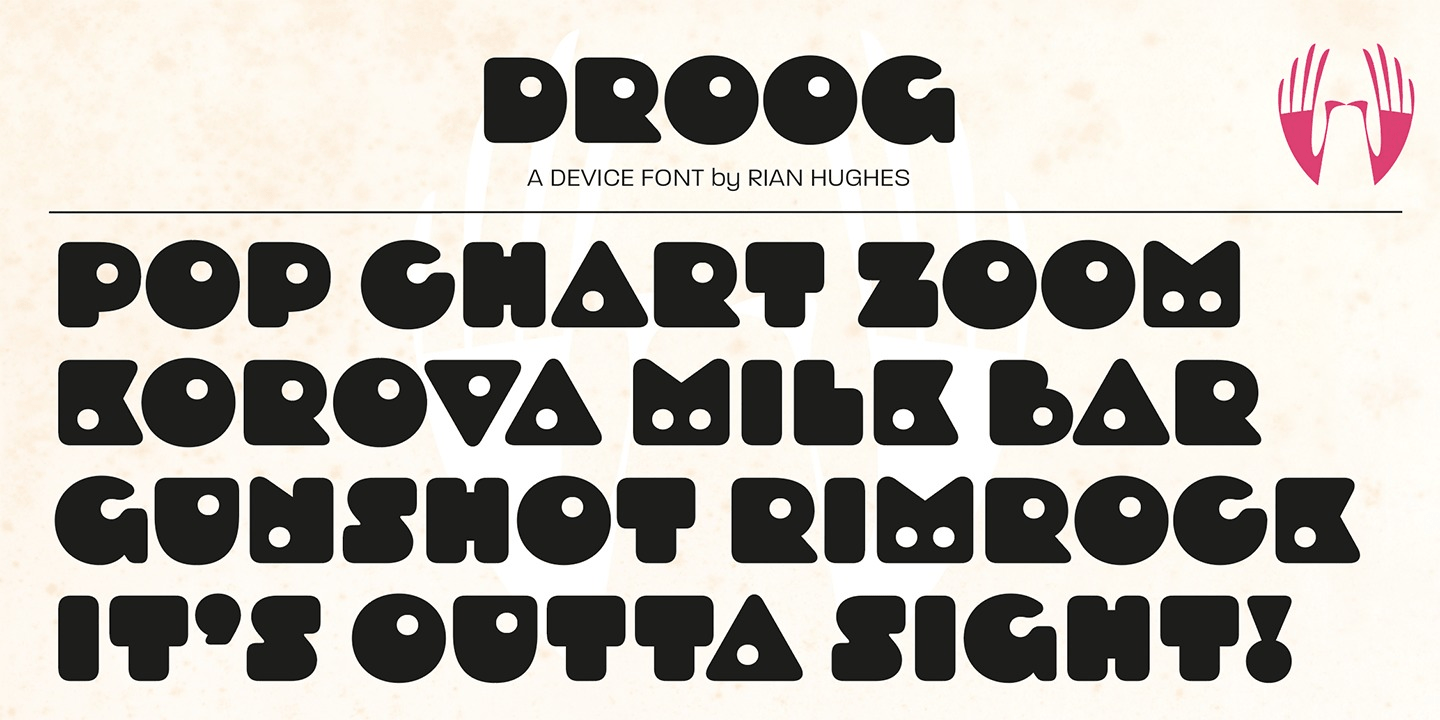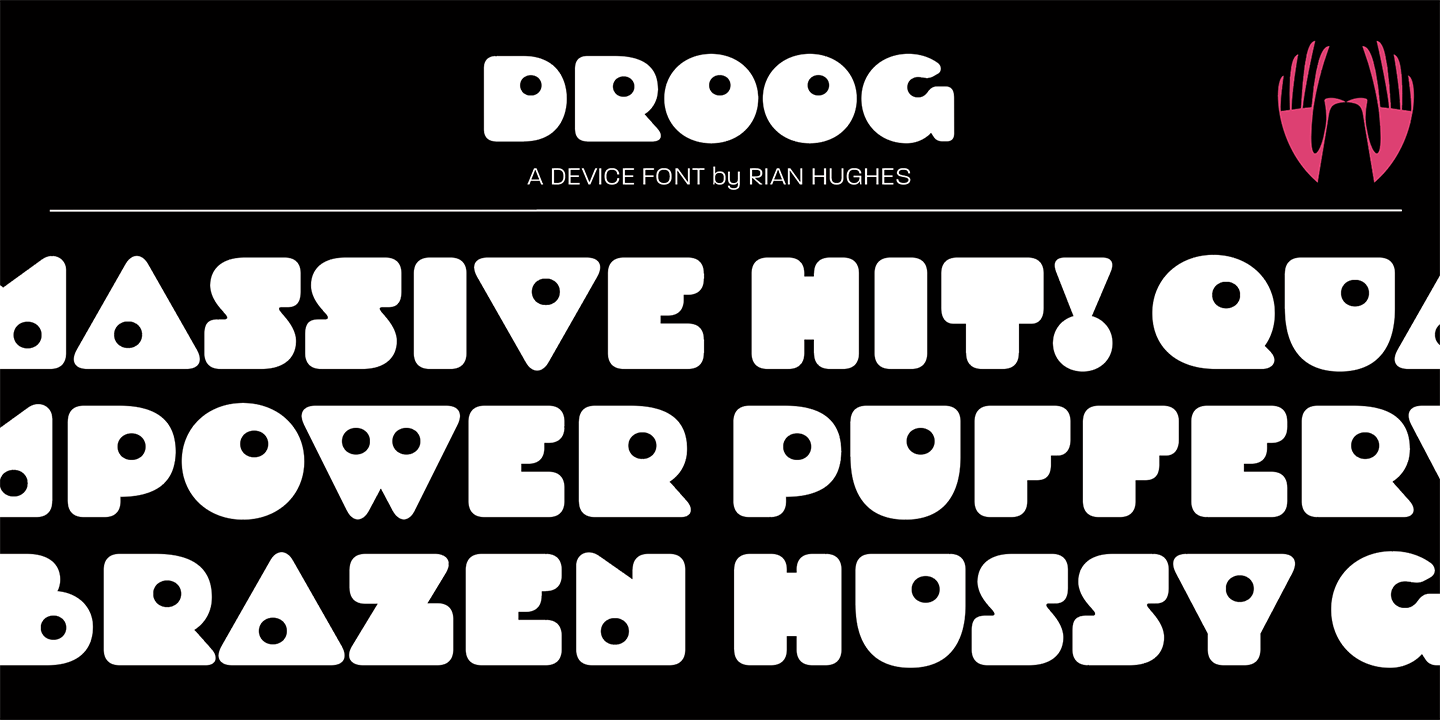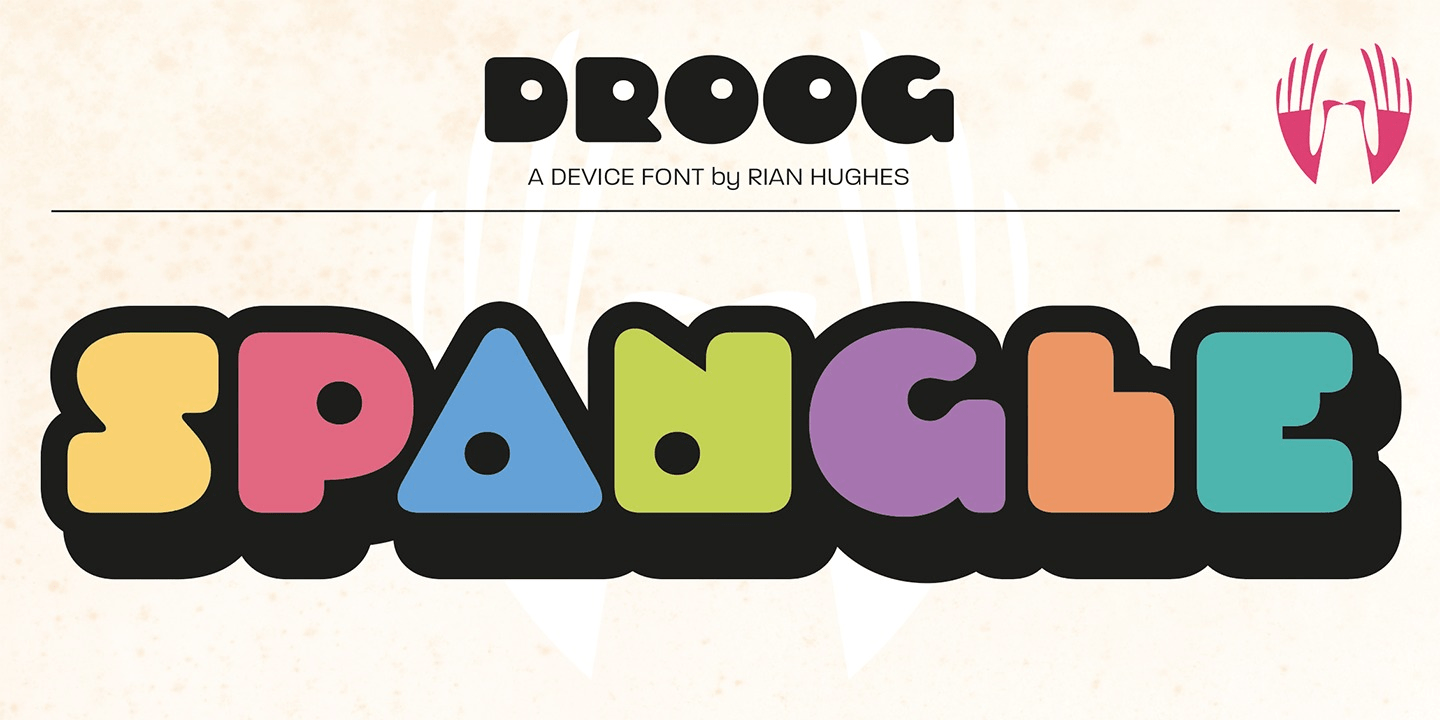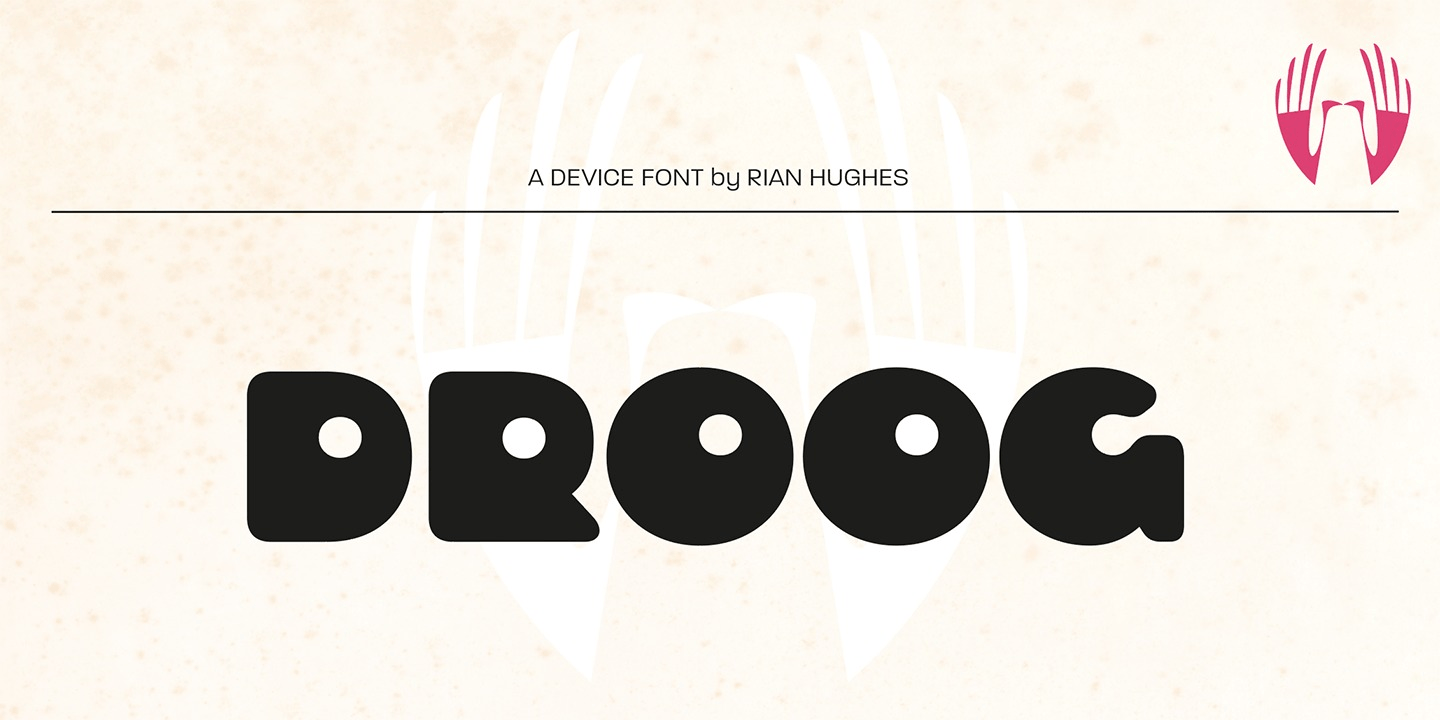
About Droog
Droog is an unusual rounded font pierced with circular holes, some of which are used in lieu of counters. Used to best effect in shorter settings and at larger sizes. Suitable for science fiction posters, sweet wrappers, hipster bars, noodle joints, pet…